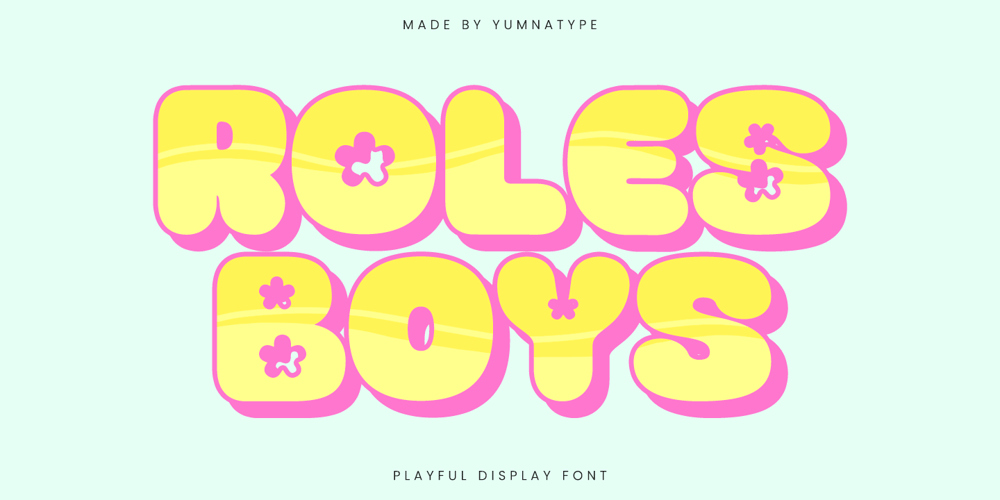
Roles Boys Font Family was designed by Donis Miftahudin and published by Yumna Type. Roles Boys contains 1 styles and family package options. Roles Boys is a lively display font crafted uppercases, showcasing a playful style. The rounded shapes give it a soft and friendly appearance. Roles Boys combines boldness with a sense of whimsy, ensuring your designs stand out with both impact and charm. Its thick, rounded characters are suitable to convey joy and creativity in a bold and memorable way. In addition, enjoy the features here.Features: Stylistic Sets Multilingual Supports PUA Encoded Numerals and Punctuations Roles Boys fits in headlines, logos, posters, flyers, branding materials, print media, editorial layouts, and many more designs. Find out more ways to use this font by taking a look at the font preview.Thanks for purchasing our fonts. Hopefully, you have a great time using our font. Feel free to contact us anytime for further information or when you have trouble with the font. Thanks a lot and happy designing.